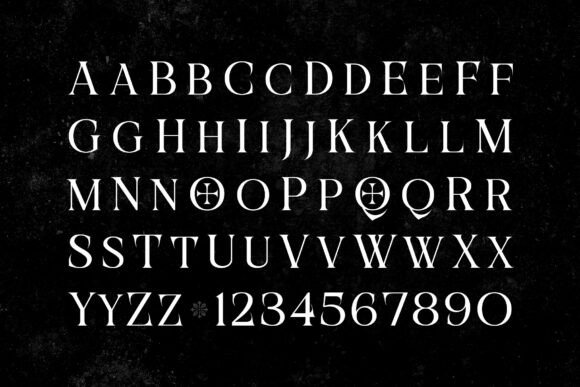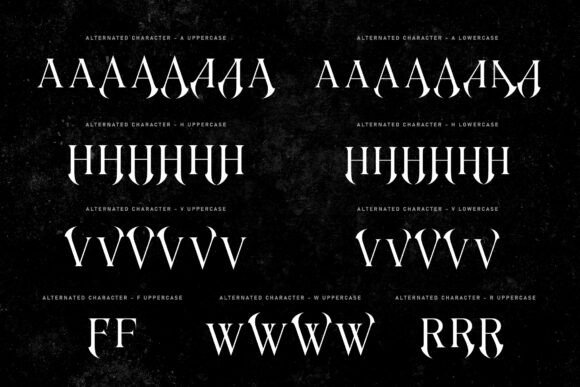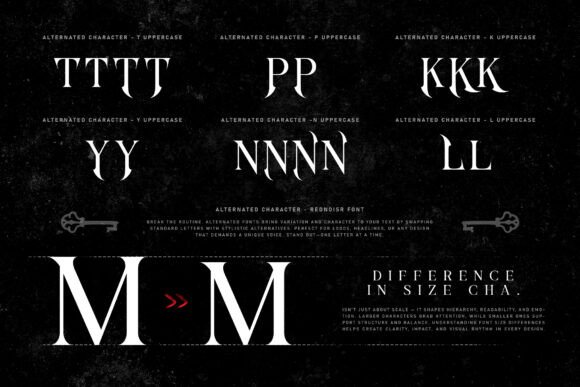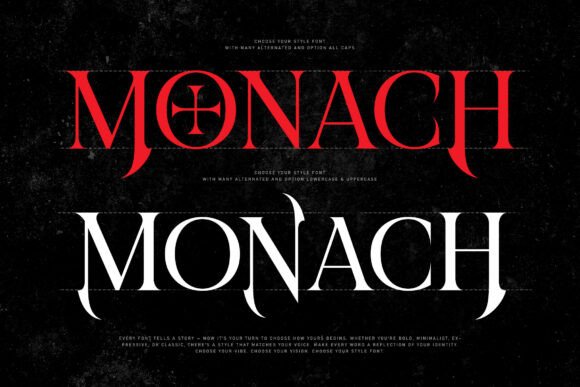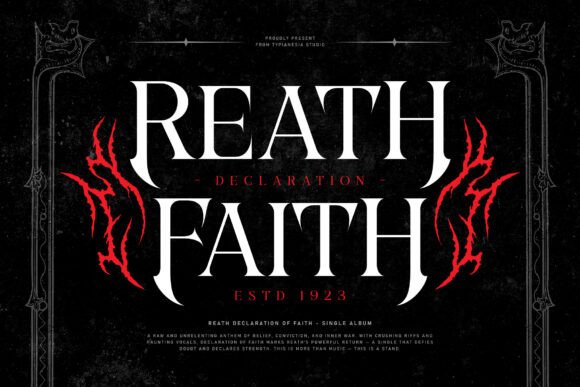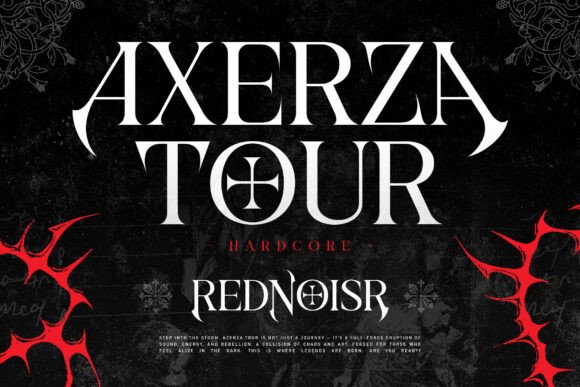
Introduction to Rednoisr Font Font
Fonts play a crucial role in design, and the Rednoisr Font font is a typeface that brings both character and versatility to any project. Whether you’re working on a branding project, a website, or a print design, the Rednoisr Font font offers a unique style that can elevate your work.
Rednoisr – Elegant Fantasy Serif Font – Dark Aesthetics Games Display Font Rednoisr is an elegant fantasy serif font, designed to evoke a sense of mystique and power.
Inspired by the rich narratives of RPG games, this multipurpose display typeface features distinctive alternates and striking serifs that command attention Rednoisr is perfect for projects requiring a unique and impactful visual presence, such as branding projects, fantasy novel covers, game titles, advertising campaigns, posters, logo design, album art, event posters for hardcore music festivals, edgy branding, and any project .
Key Features of Rednoisr Font Font
Why Choose Rednoisr Font Font?
The Rednoisr Font font is more than just a typeface – it’s a design tool that helps you communicate your message with style and clarity. Its unique character set and versatile design make it suitable for a wide range of applications, from elegant invitations to bold headlines.
With its carefully crafted letterforms and balanced proportions, the Rednoisr Font font ensures readability and visual appeal across all mediums.
What makes Rednoisr Font font special?
The Rednoisr Font font stands out with its unique design, exceptional readability, and versatility across various design applications.